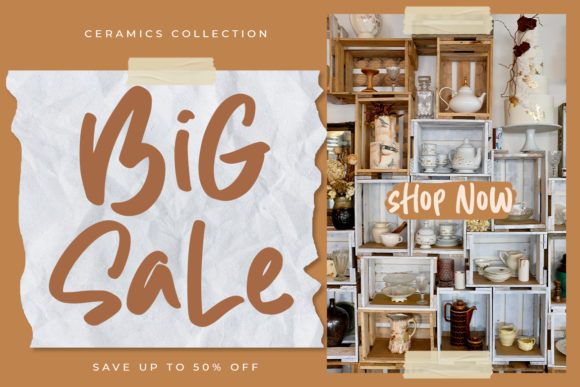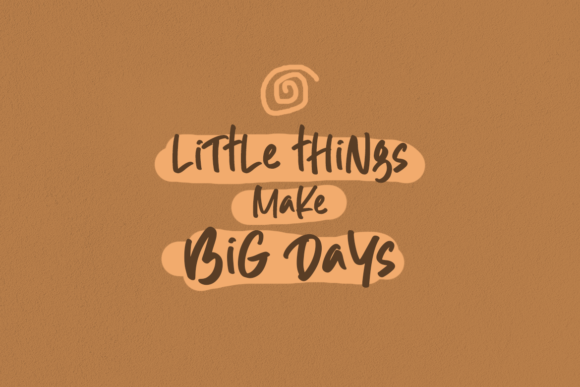
Morning Mitoss Font
db-ku.com - Script & Handwritten -- Morning Mitoss is a brushed, romantic and sweet handwritten font. It has a unique, natural and catchy vibe and it is suitable for design projects such as logos, branding, invitations, stationary art, social media posts, and much more!